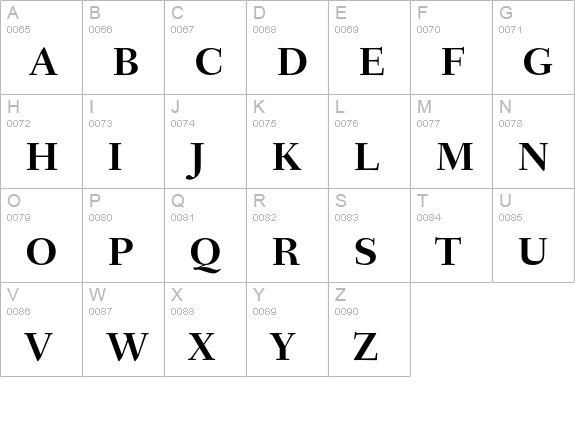
Fairfield LH 75 Bold Font Details
Fairfield LH 75 Bold is a strong, high-contrast variant in the Fairfield typeface family \xE2\x80\x94 well suited to headlines, attention-grabbing titles, and strong calls-to-action.